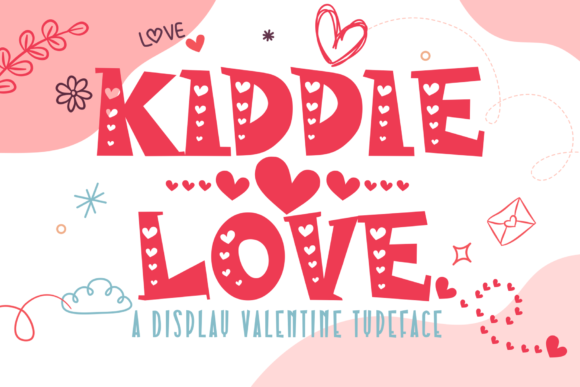
Introducing Kiddie Love Font - Your Ticket to Mesmerizing Design Delights!
Behold Kiddie Love Font, a captivating display font that oozes charm and enchantment. Each letter is adorned with delightful hearts, weaving an intricate tale of love, romance, and joy. This font is not just a mere collection of glyphs; it's an artistic masterpiece that will elevate your designs to breathtaking heights.
Immerse yourself in the world of Kiddie Love Font and let your creativity run wild. Adorn your Valentine's Day posters with its heartfelt charm, let logos and branding shine with its romantic touch, and create T-shirts that exude love and affection. This font will transform event banners into captivating invitations, leaving a lasting impression on your audience.
Kiddie Love Font is more than just a font; it's an experience. Its enchanting characters will draw your audience in, creating an intimate connection that leaves them spellbound. Make every design a love letter, every poster a declaration of passion, and every T-shirt an expression of adoration.